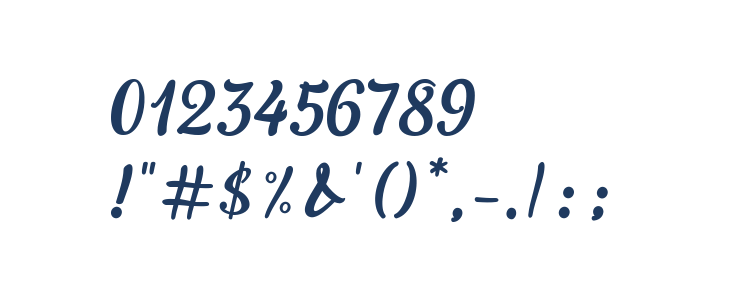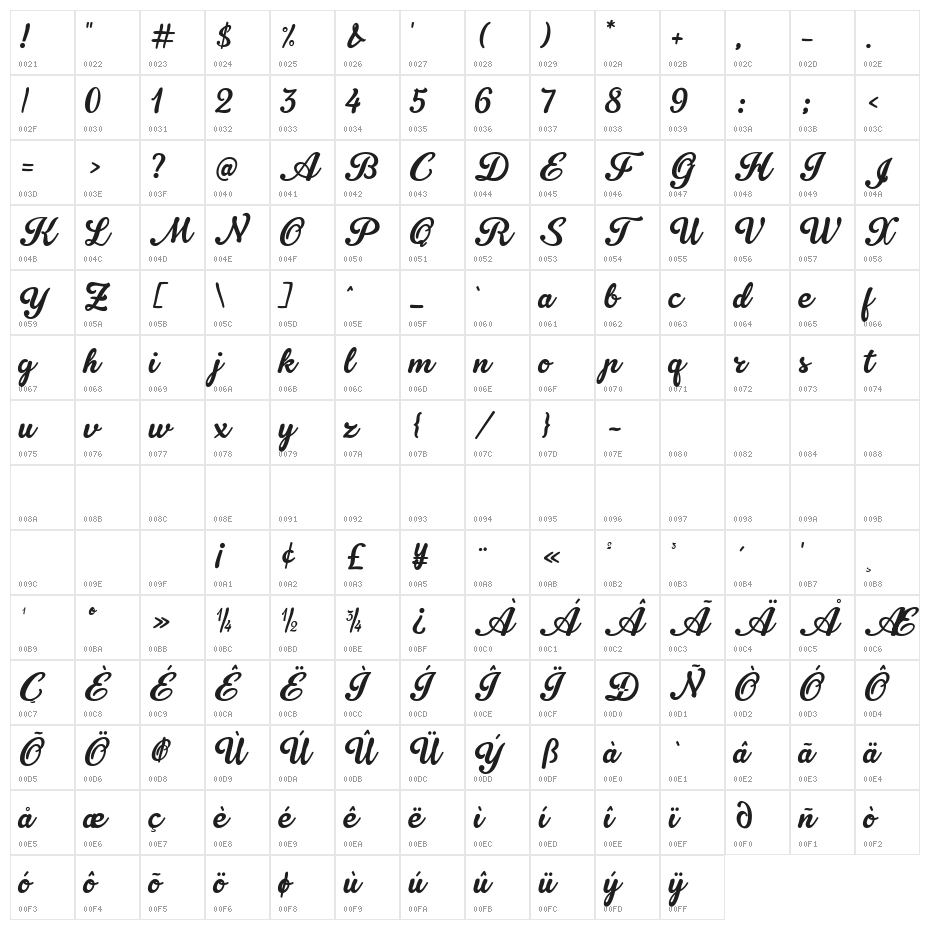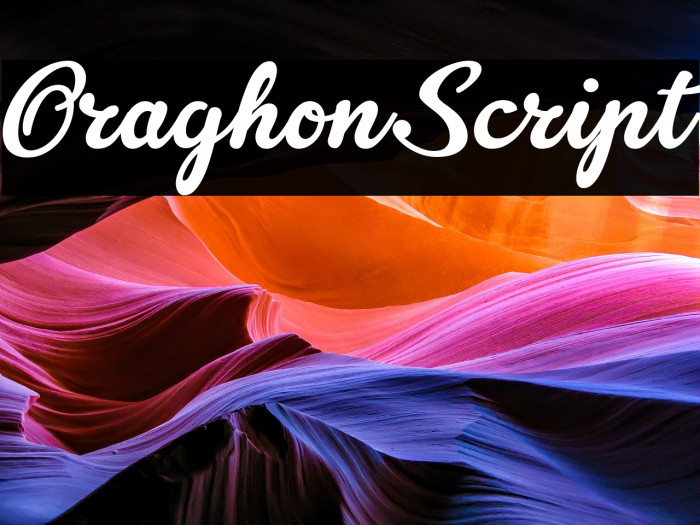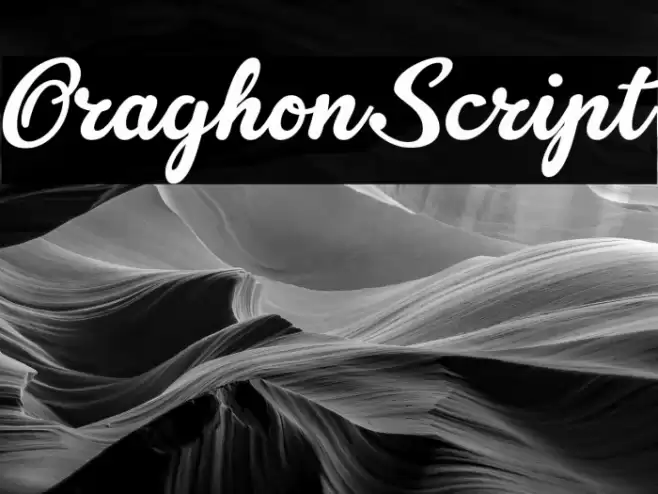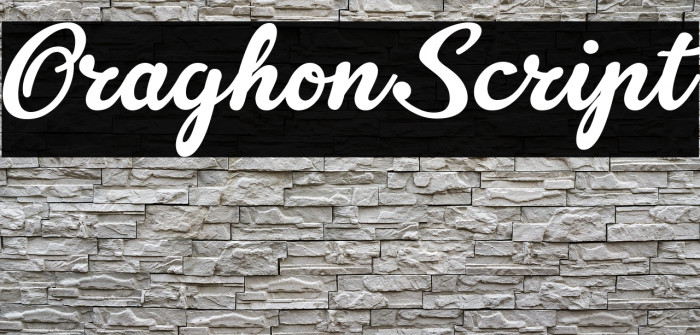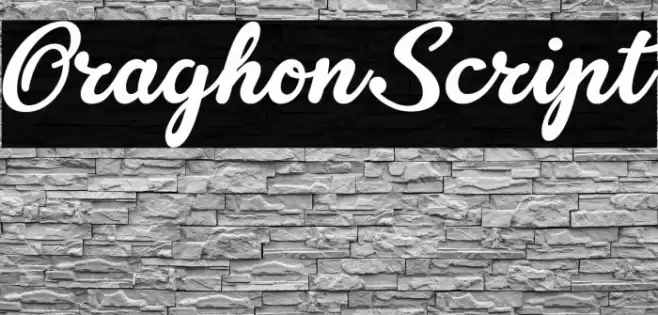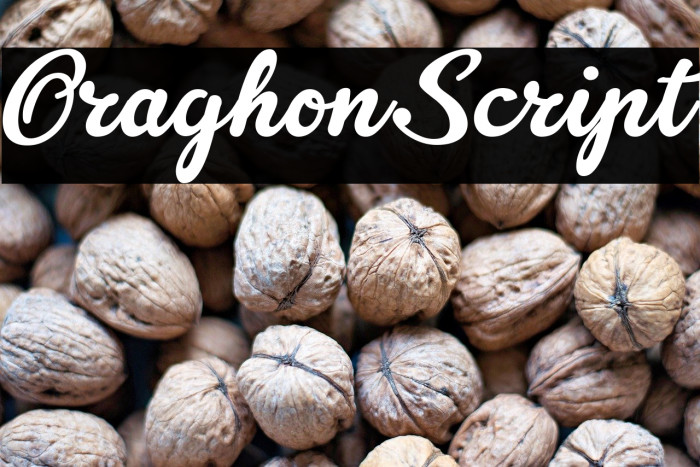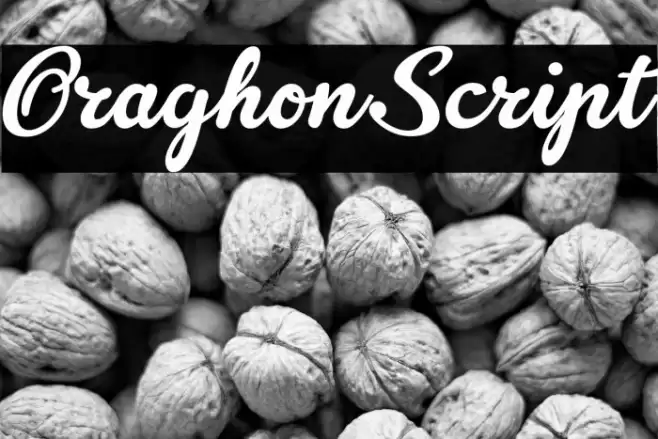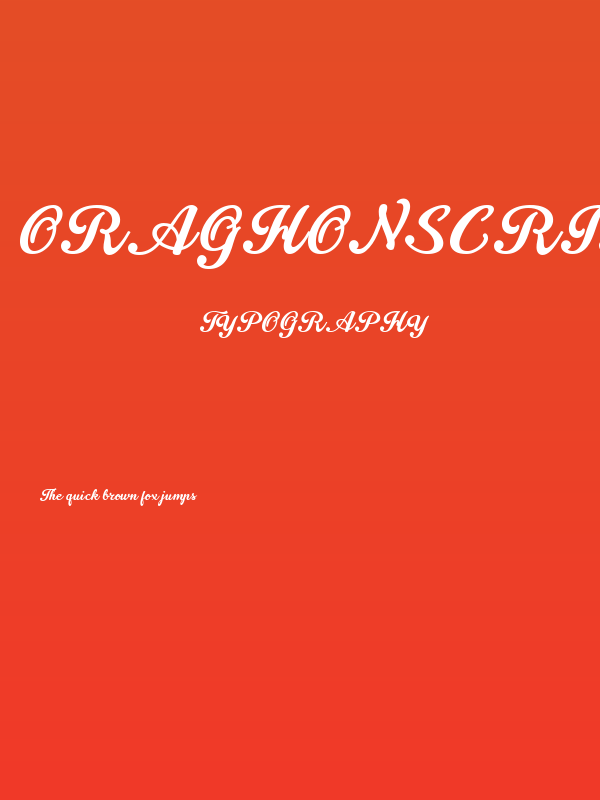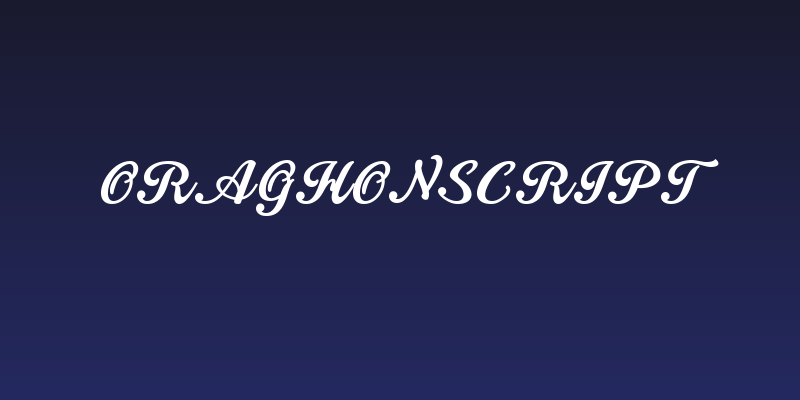
OraghonScript Font
OraghonScript Description
This font exhibits a flowing, cursive style with elegant loops and swashes, creating a sense of fluidity and grace. The uppercase letters are particularly ornate, with intricate curves that enhance their decorative appeal. The lowercase letters maintain a consistent rhythm, contributing to the overall harmonious appearance. The numerals and special characters are designed to match the script's aesthetic, ensuring a cohesive look across all elements. This font's design is reminiscent of traditional calligraphy, yet it maintains a modern touch, making it versatile for various applications.